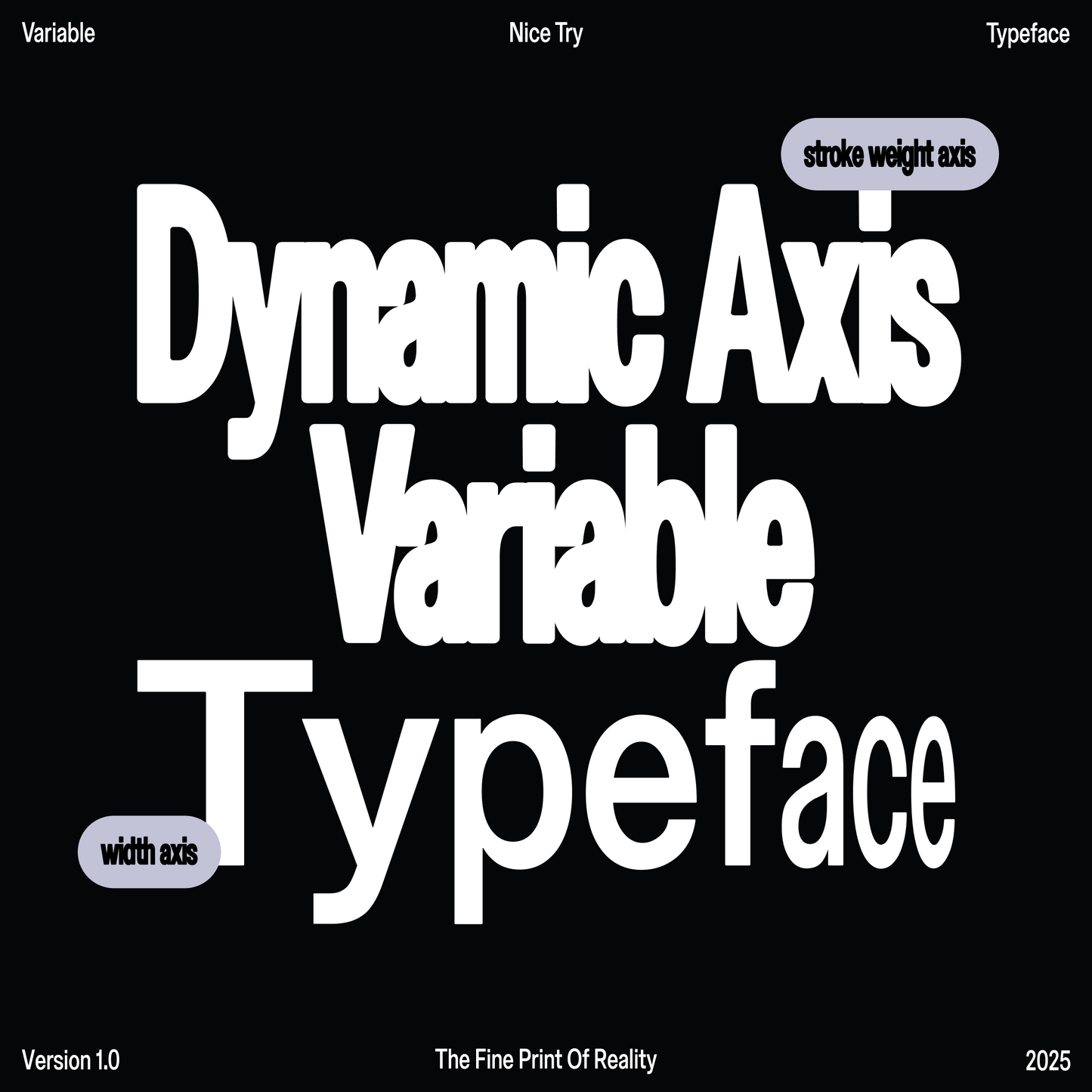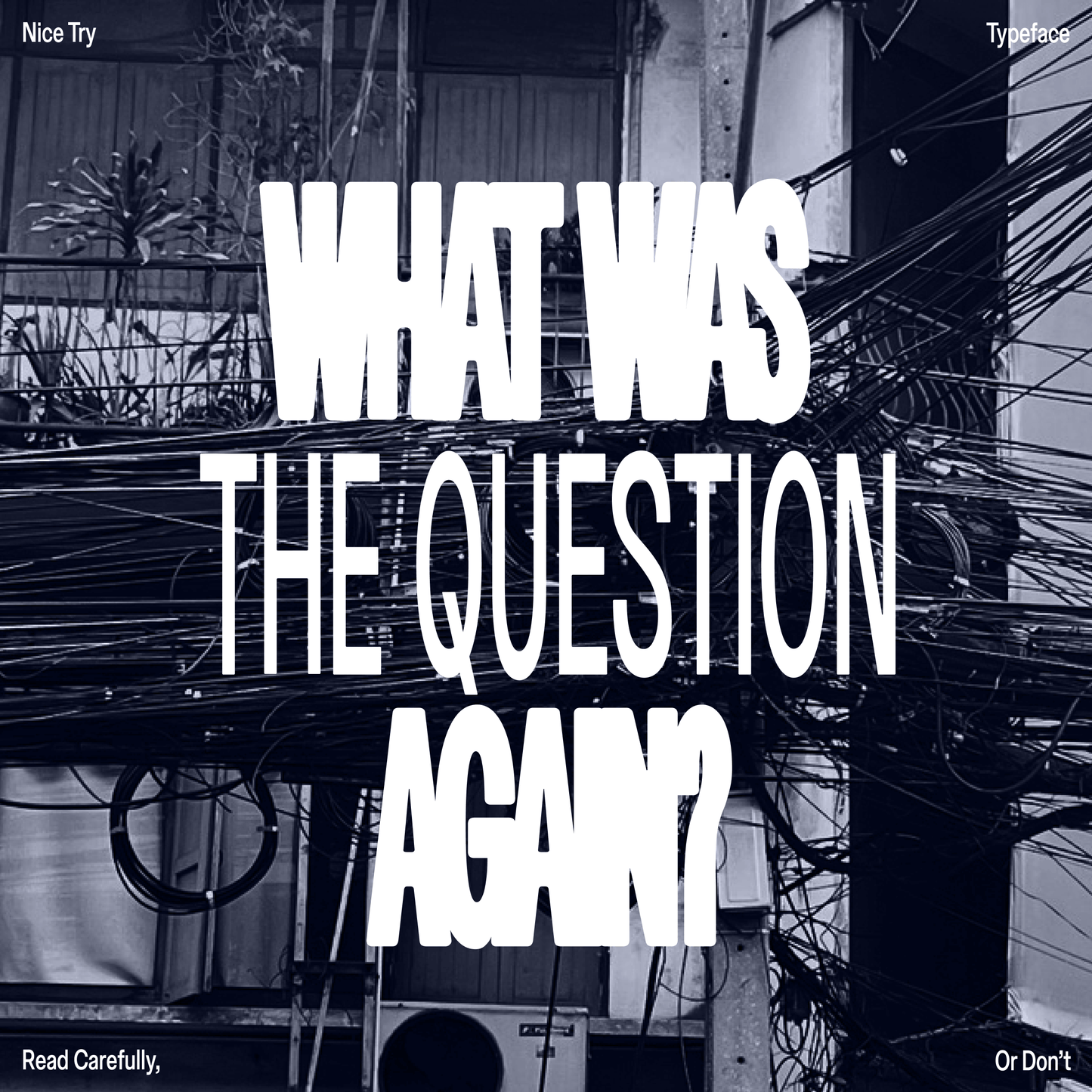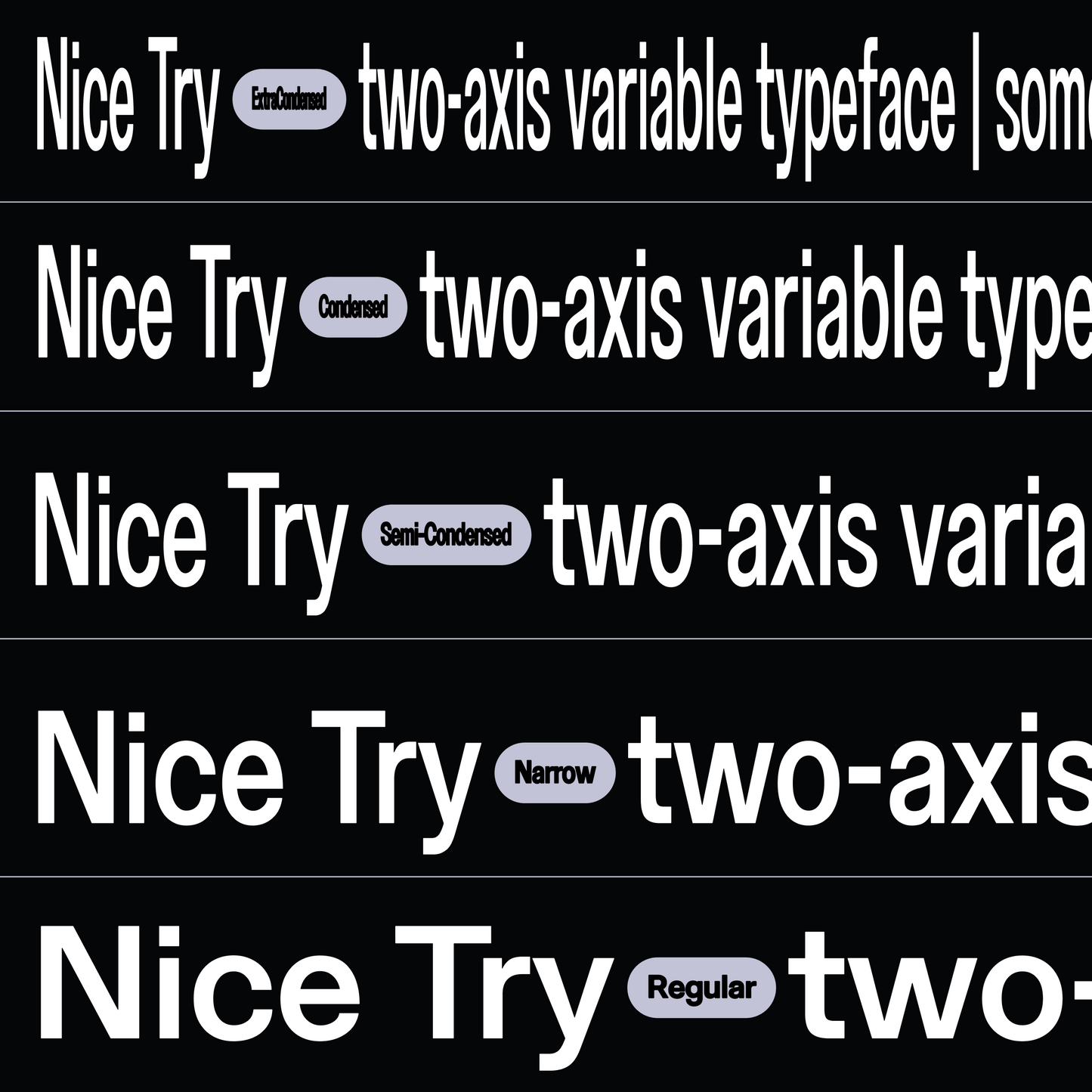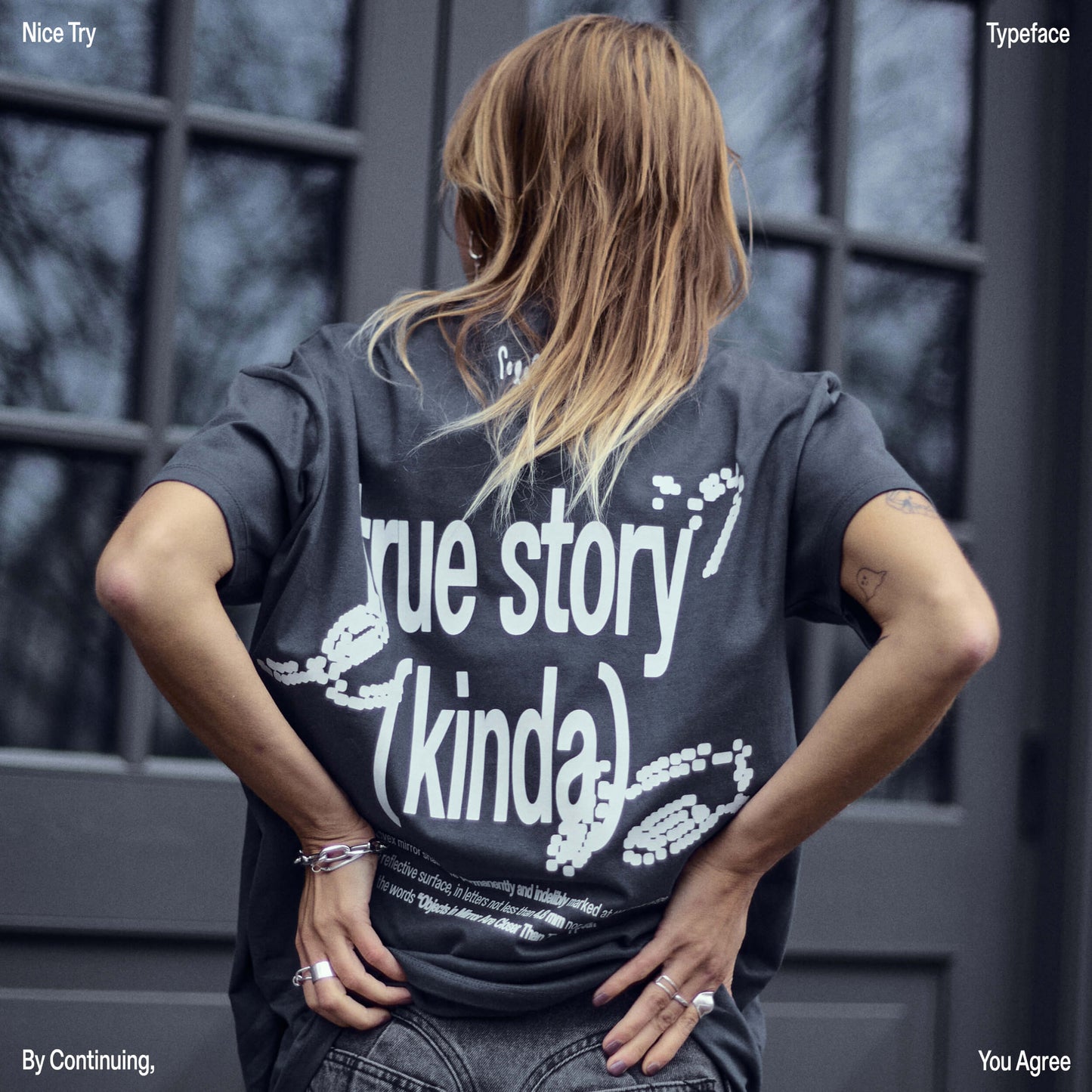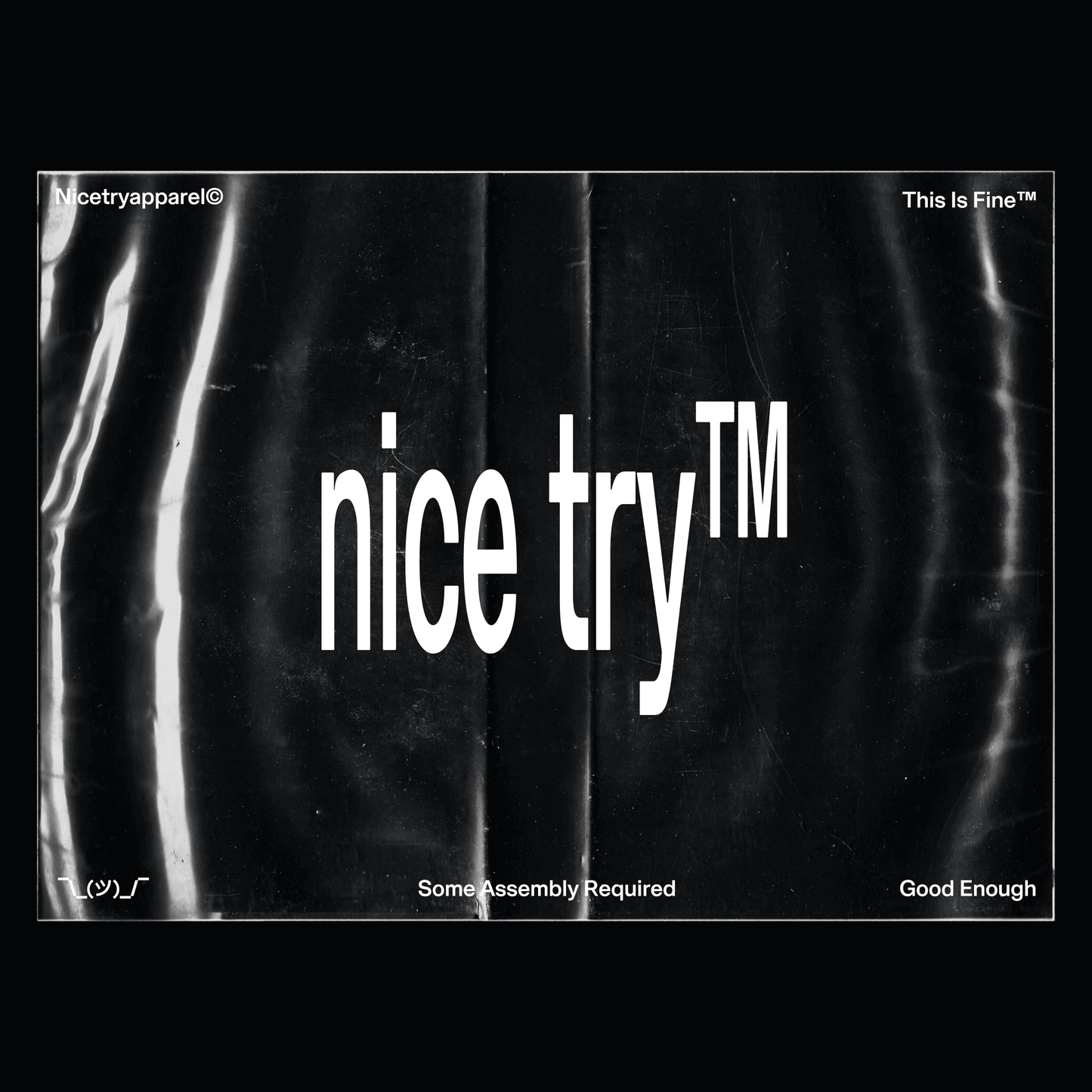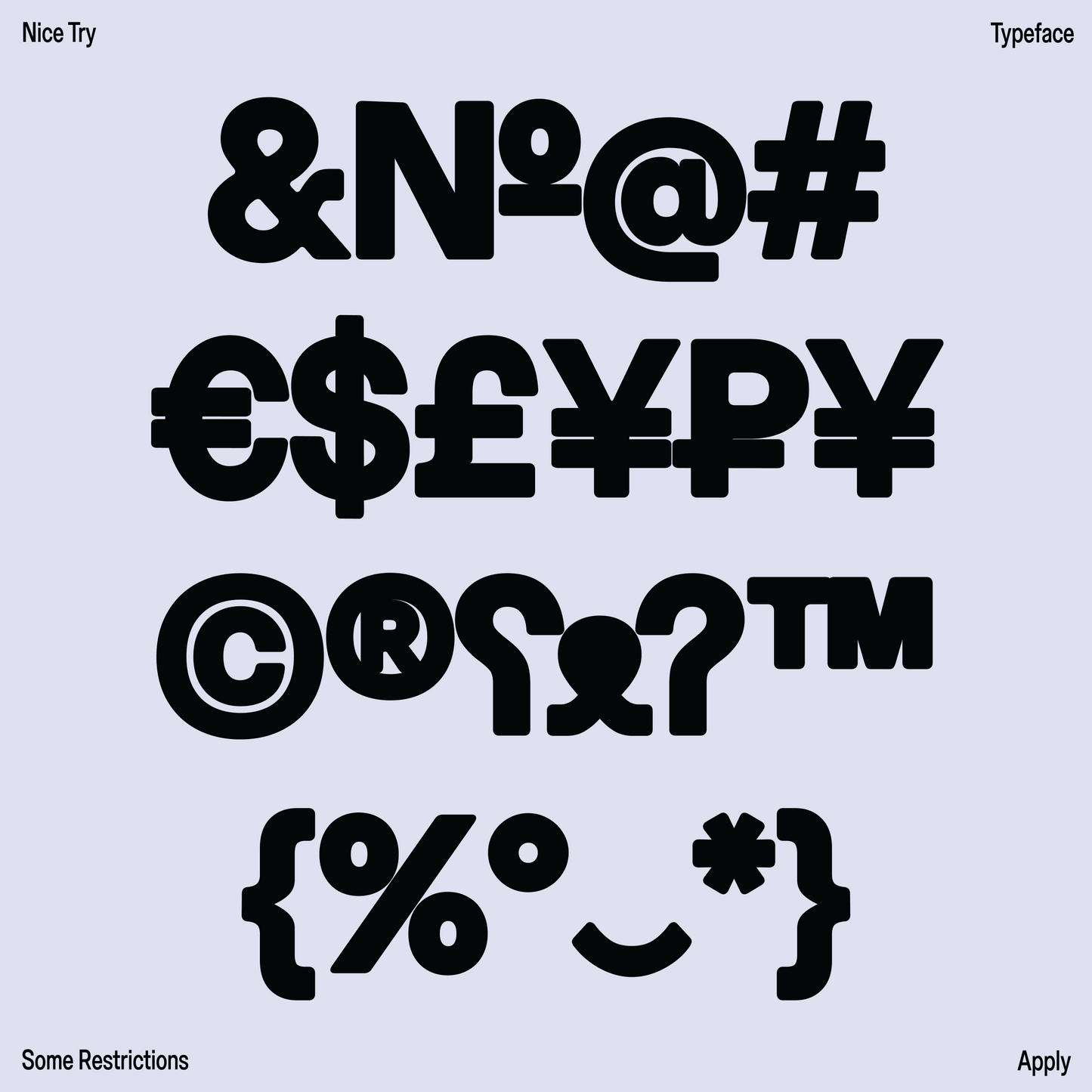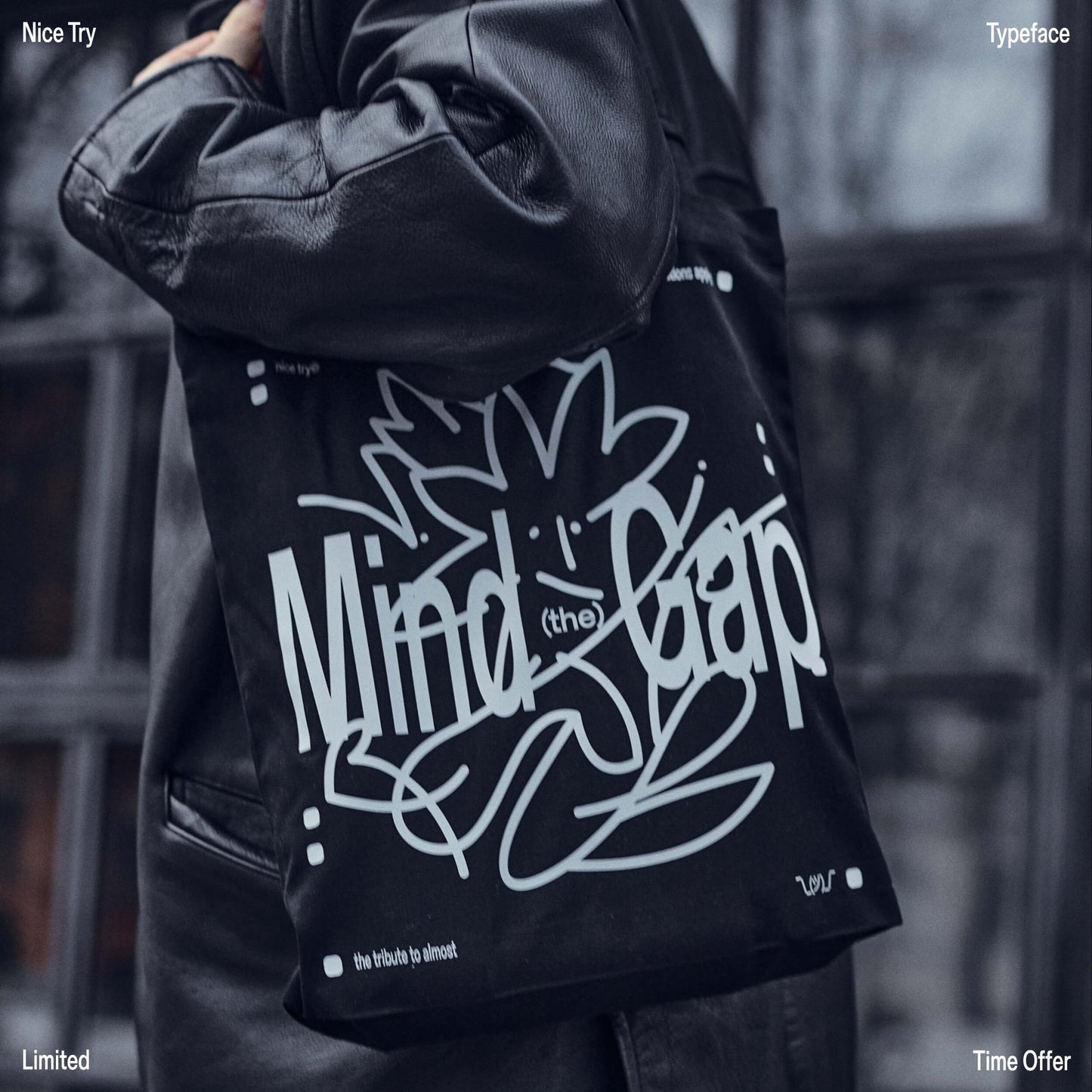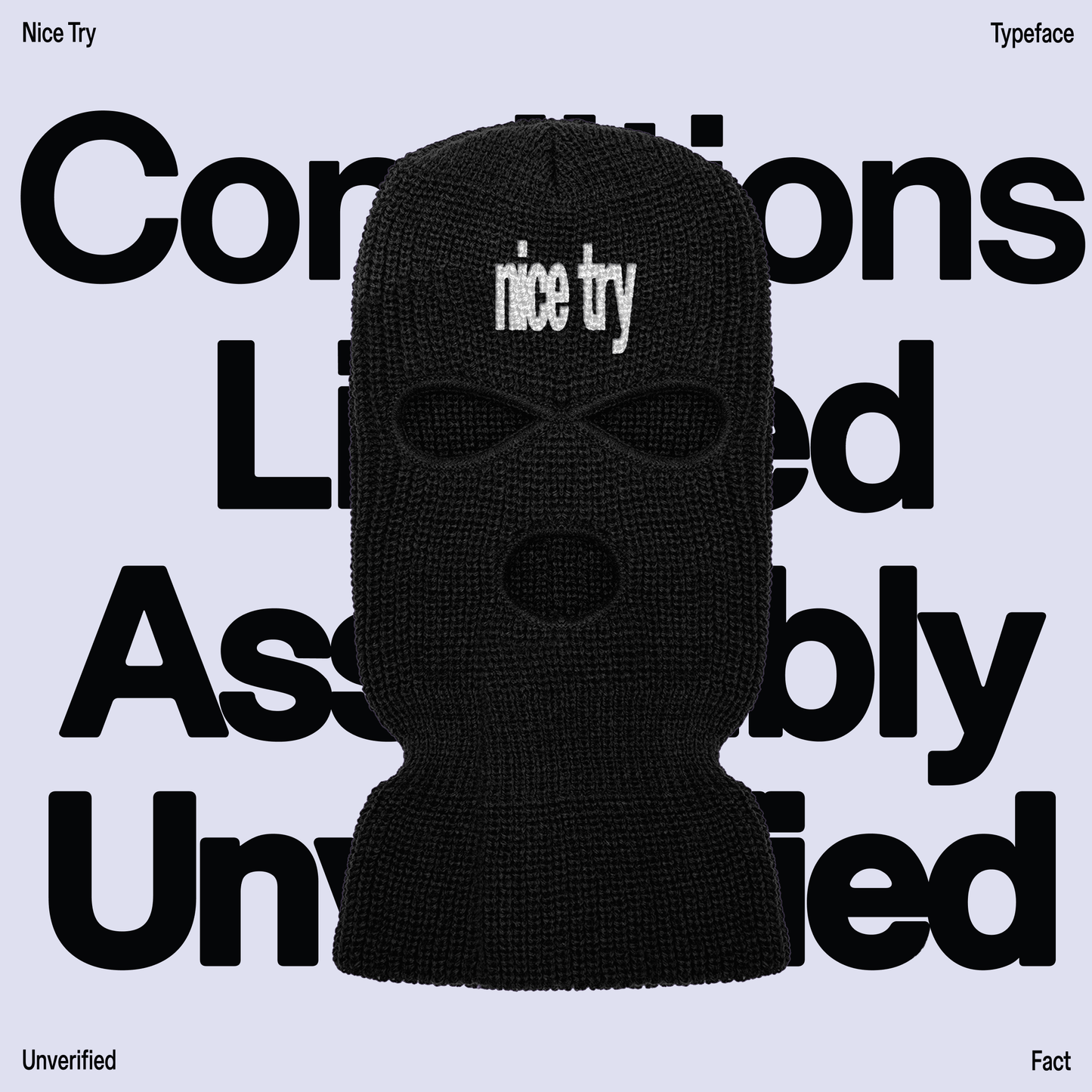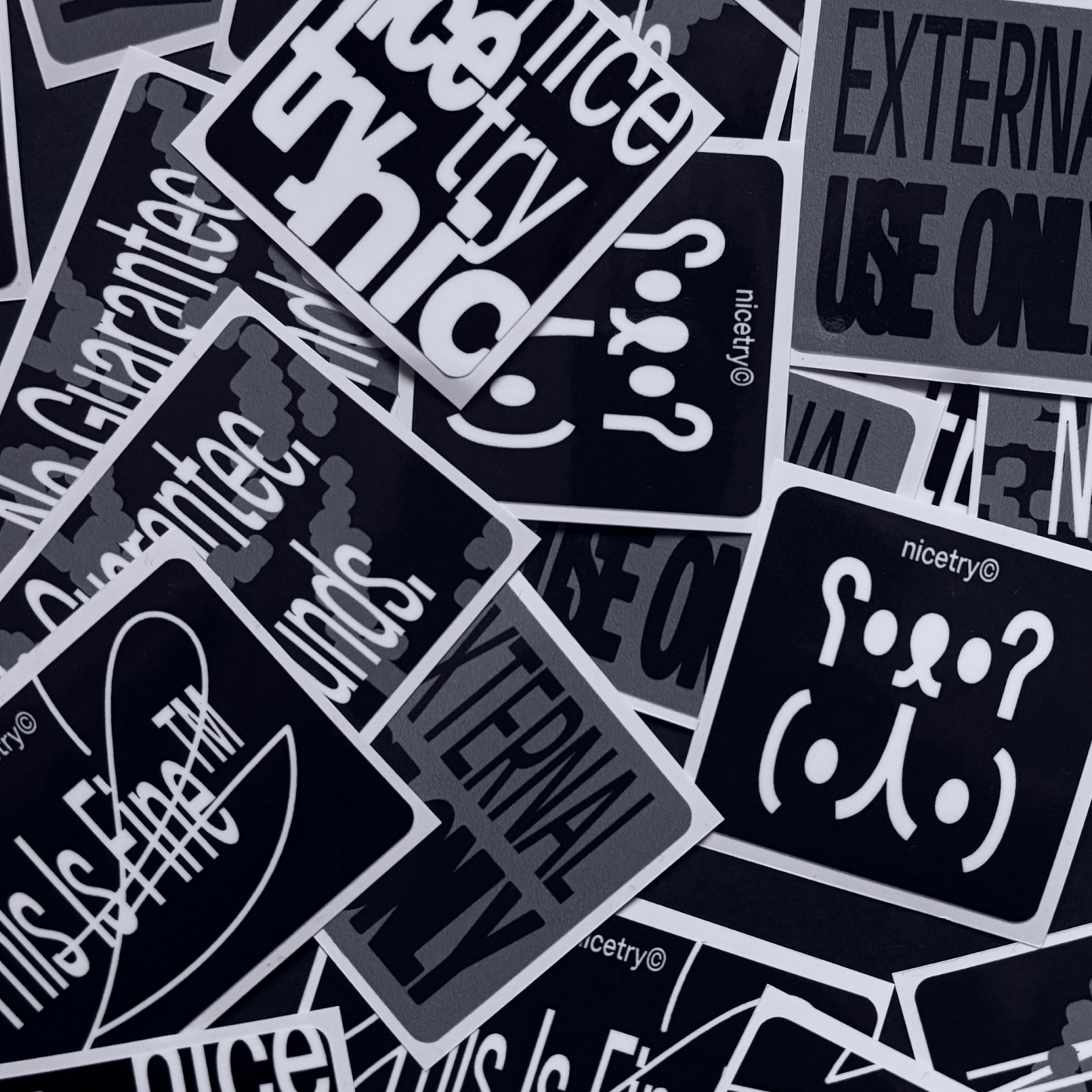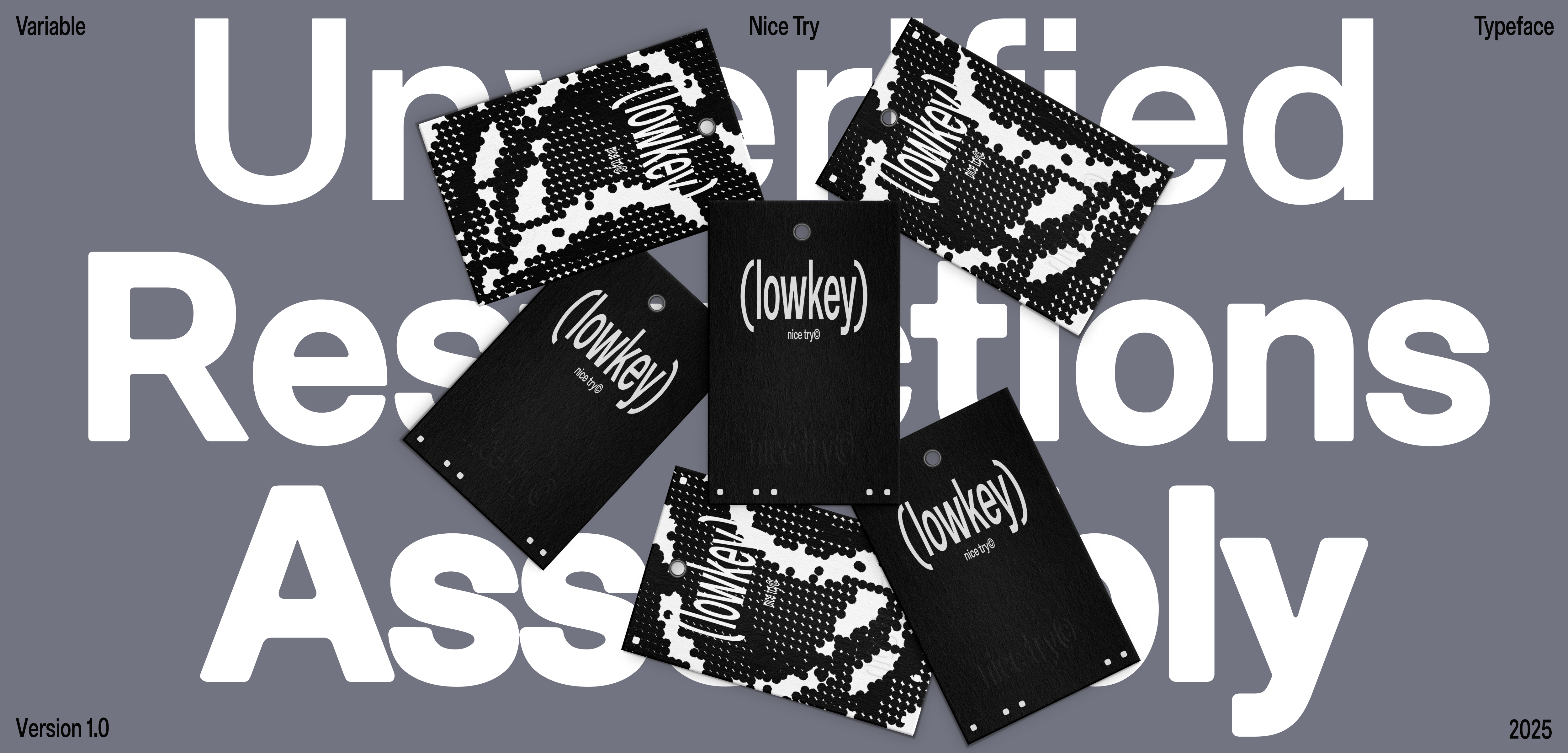
Nice Try
Sasha Denisova
Nice Try is a variable typeface with two dynamic axes. It ranges from tight, condensed forms to open, perfectly readable structures. The weight of the typeface is controlled by the stroke thickness, defying traditional type design conventions.
The typeface is never static, resisting any attempt to pin it to a single form. It constantly evolves, shifting between contrasting looks with ease. Nice Try is the embodiment of fluidity, making it the perfect choice for projects that demand both grounded structure and a sense of movement, always teetering on the edge of something unexpected.
Nice Try is a font that refuses to “land.” Instead, it invites exploration, offering the freedom to move between rigid design and fluid expression, constantly finding new possibilities at every turn.
-Total glyph set: 281 glyphs
-Variable Typeface
-Width Axes + Stroke Weight Axes
-10 Masters
-Uppercase & Lowercase
-Numbers, Symbols, Punctuation, Currency
-Text Art Symbols